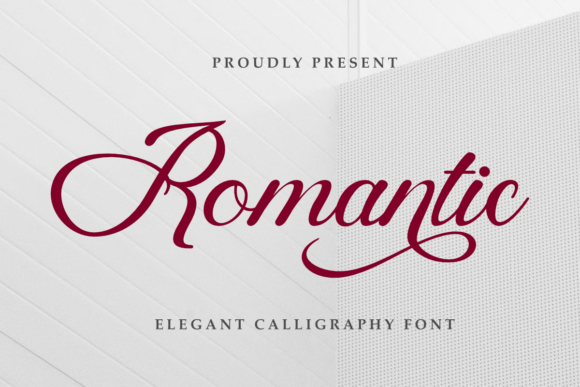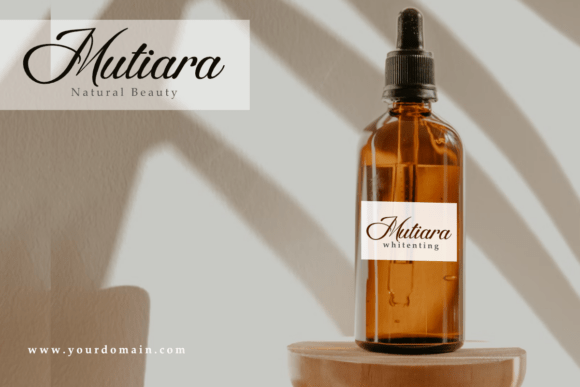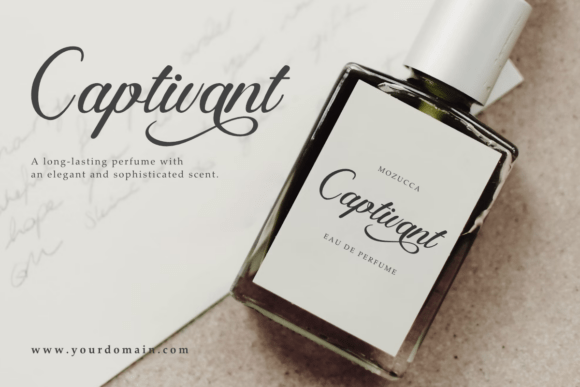
Romantic Font
About the Romantic Font
The Romantic Font offers a perfect balance of form and function for your design needs. Romantic is a beautiful and elegant handwritten font with a soft and modern touch. Its smooth strokes and stylish curves make it ideal for branding, logos, invitations, social media, product packaging, and more. This beauty handwritten font is perfect for feminine and creative projects, bringing warmth and sophistication to every design.
Romantic’s elegant, flowing forms work exceptionally well in headlines, short text blocks, and branding applications where a touch of femininity and sophistication is desired. It’s particularly effective for projects related to beauty, fashion, weddings, or artisanal goods. However, its cursive nature makes it less suitable for body text or UI elements where readability is paramount. Avoid using it for large blocks of text or situations requiring high levels of legibility.
Pairing Romantic with a clean sans-serif like Montserrat or a geometric sans-serif like Futura creates a strong contrast, balancing its delicate curves with a modern, structured feel. For a more traditional approach, consider pairing it with a classic serif like Garamond or a subtly textured serif like Playfair Display. These pairings enhance its sophisticated character without overwhelming the design.
The font’s core personality is undeniably elegant and feminine, conveying a sense of warmth and refinement. Its soft curves create a friendly yet sophisticated mood, making it a suitable choice for brands that wish to project a sense of high-quality craftsmanship or luxury.